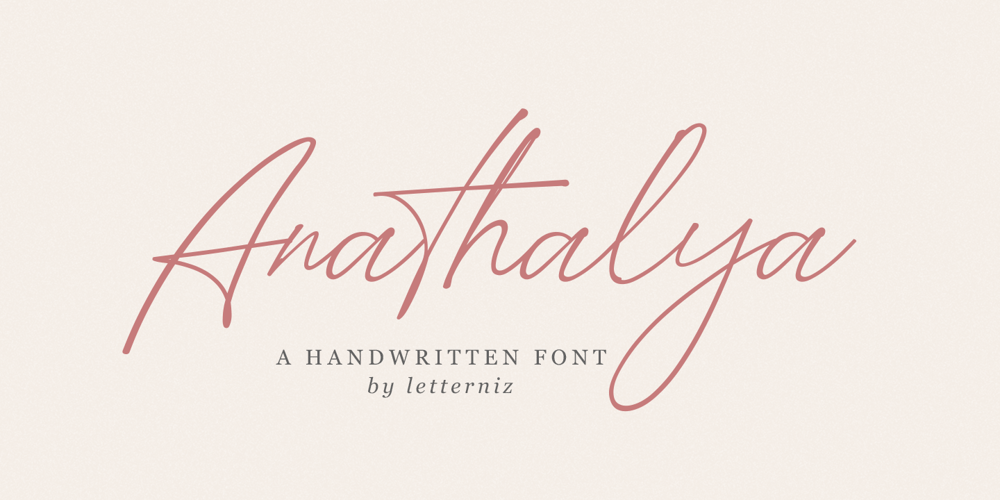
Anathalya
Anathalya font
Anathalya Font Family was designed by Nizar Bagas Maulana and published by Letterniz. Anathalya contains 1 styles and family package options. Anathalya is a handwritten script font. Looks stunning on wedding invitations, thank you cards, quotes, greeting cards, logos, business cards and any other design that requires a handwritten touch.